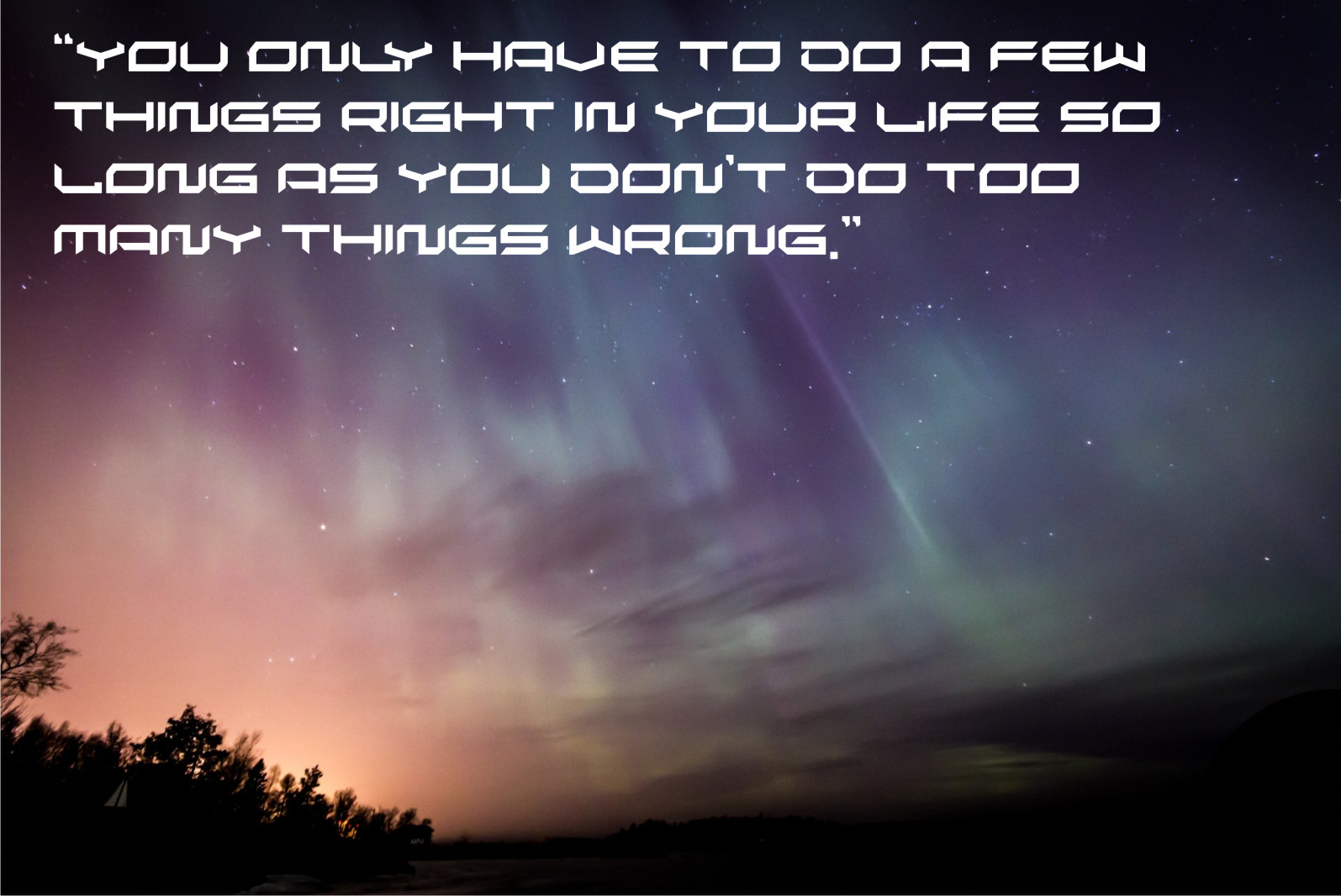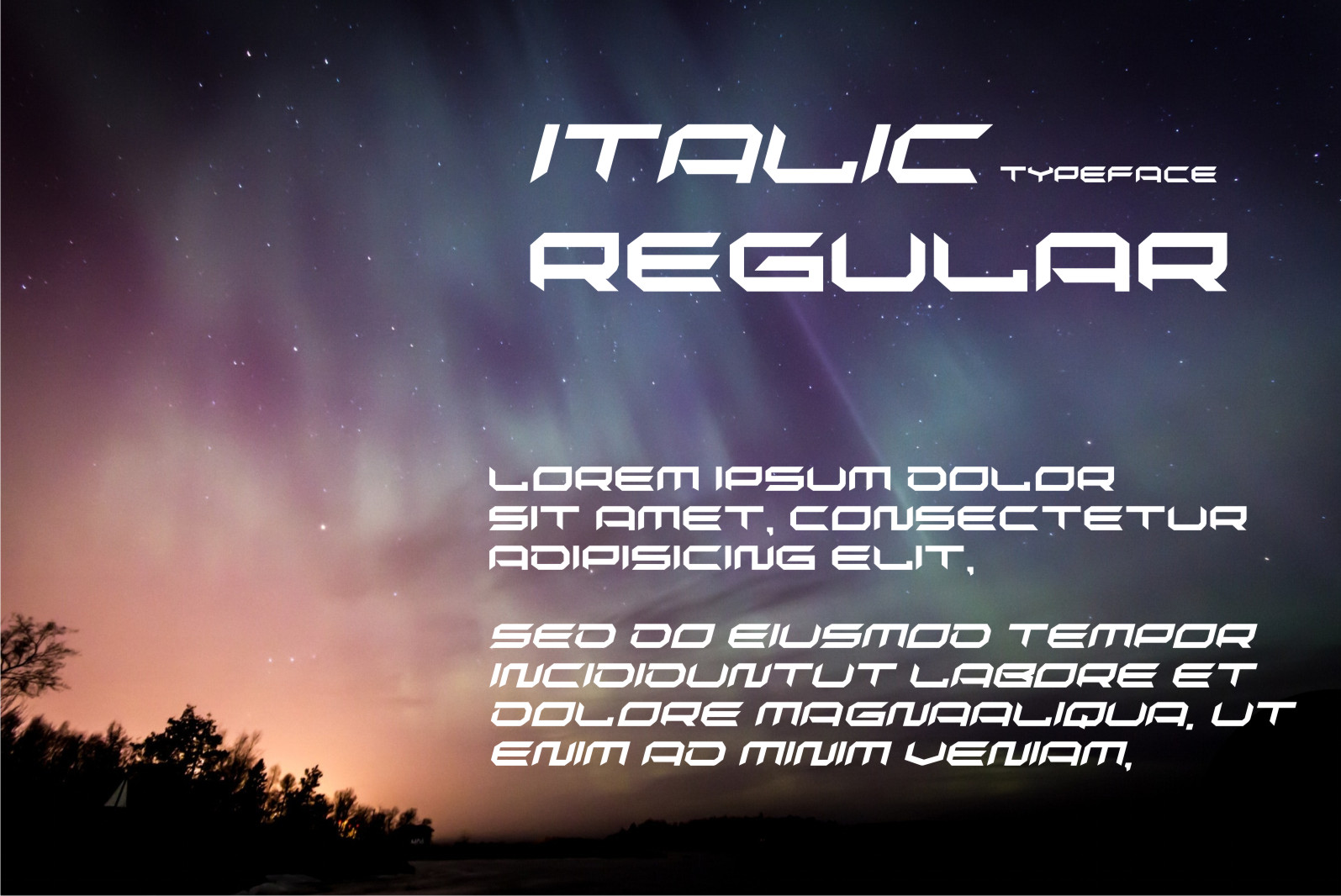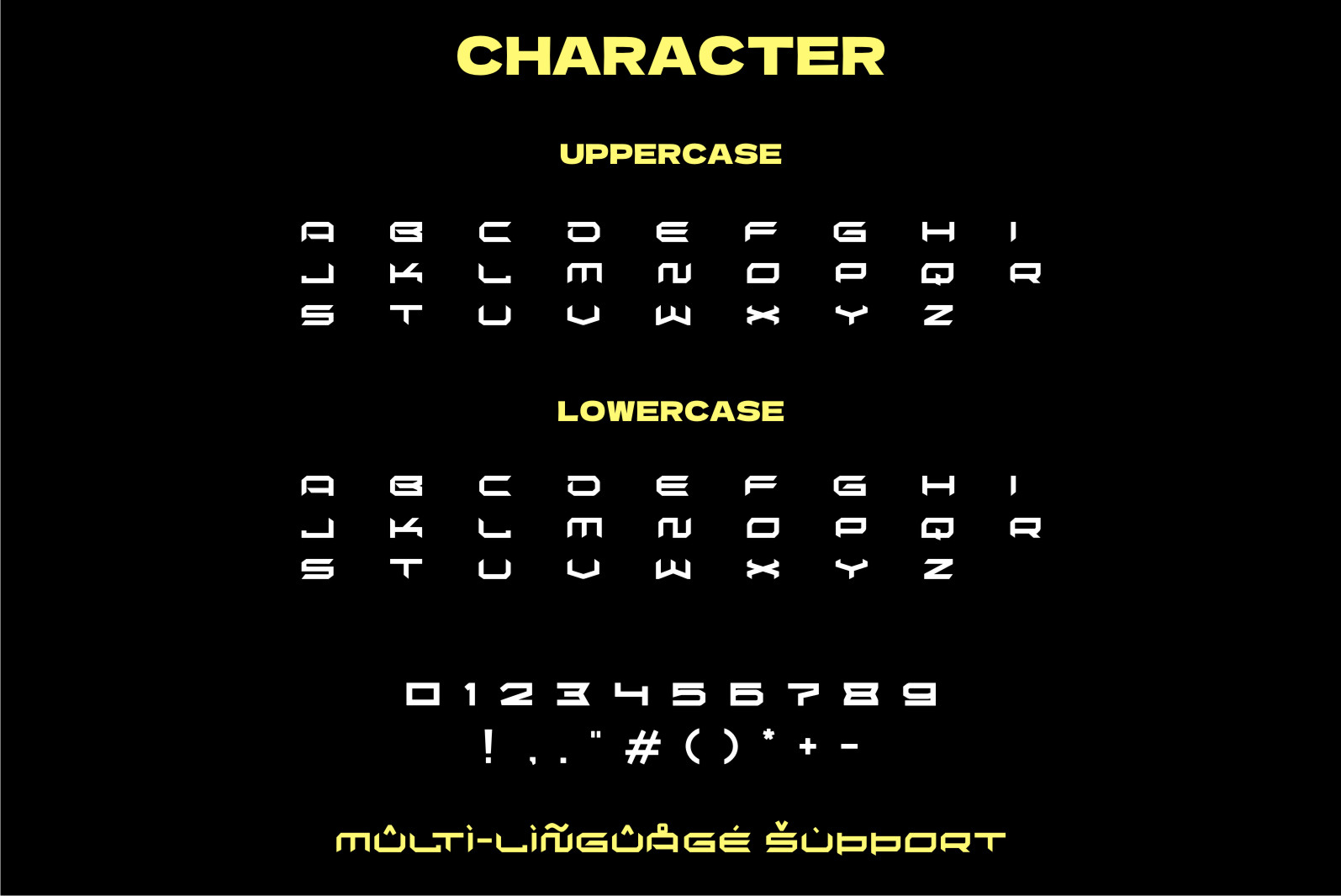
Canur Font
Canur Font is a cool and robotic-styled display font. This font is ideal for writing web designs, business cards, or pretty much anything else that requires a futuristic touch.